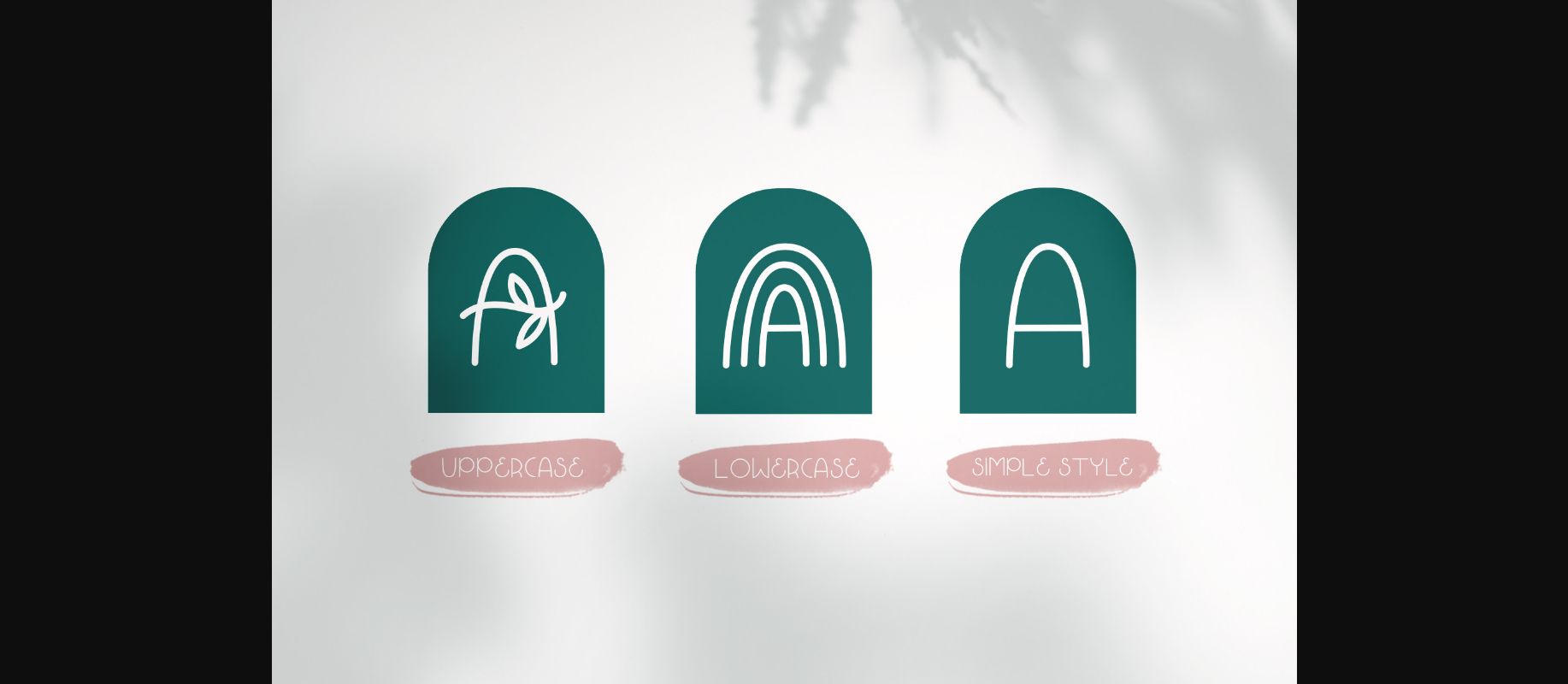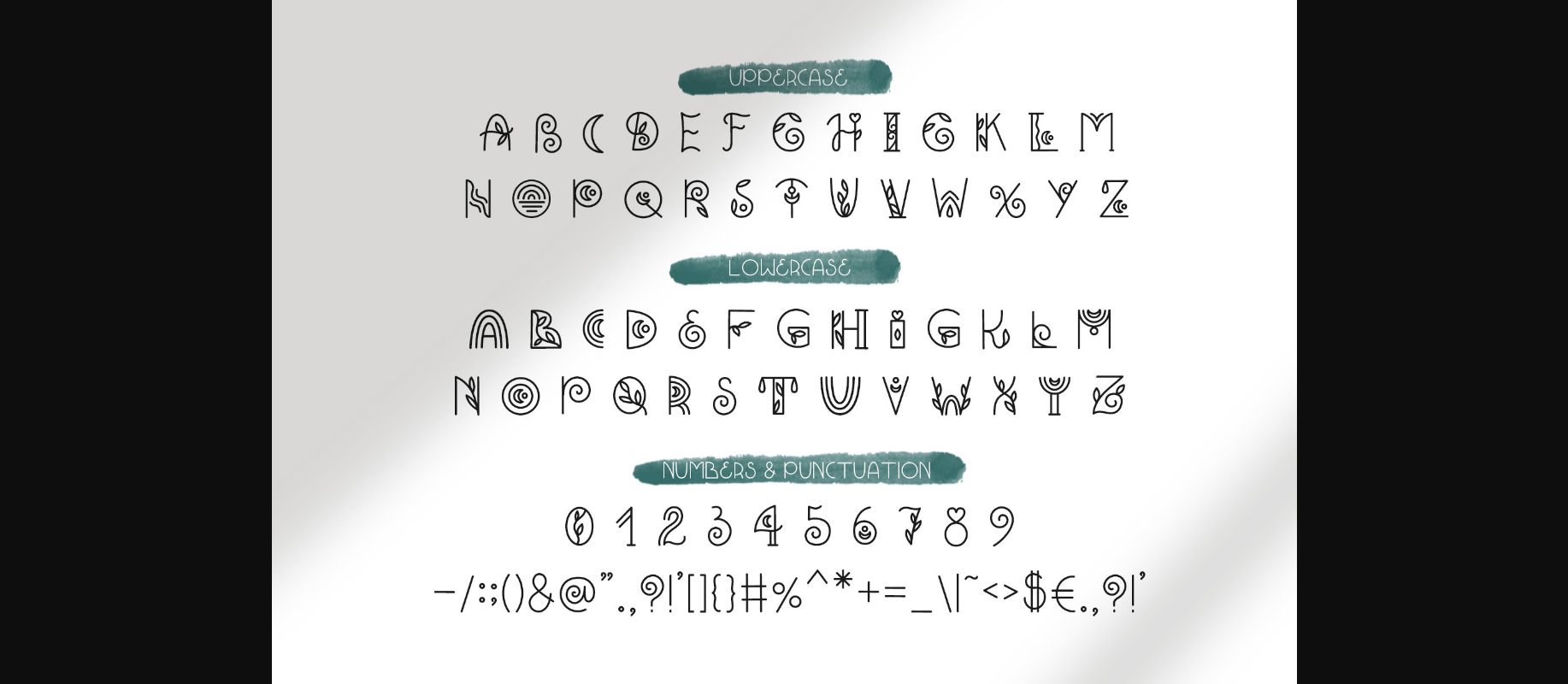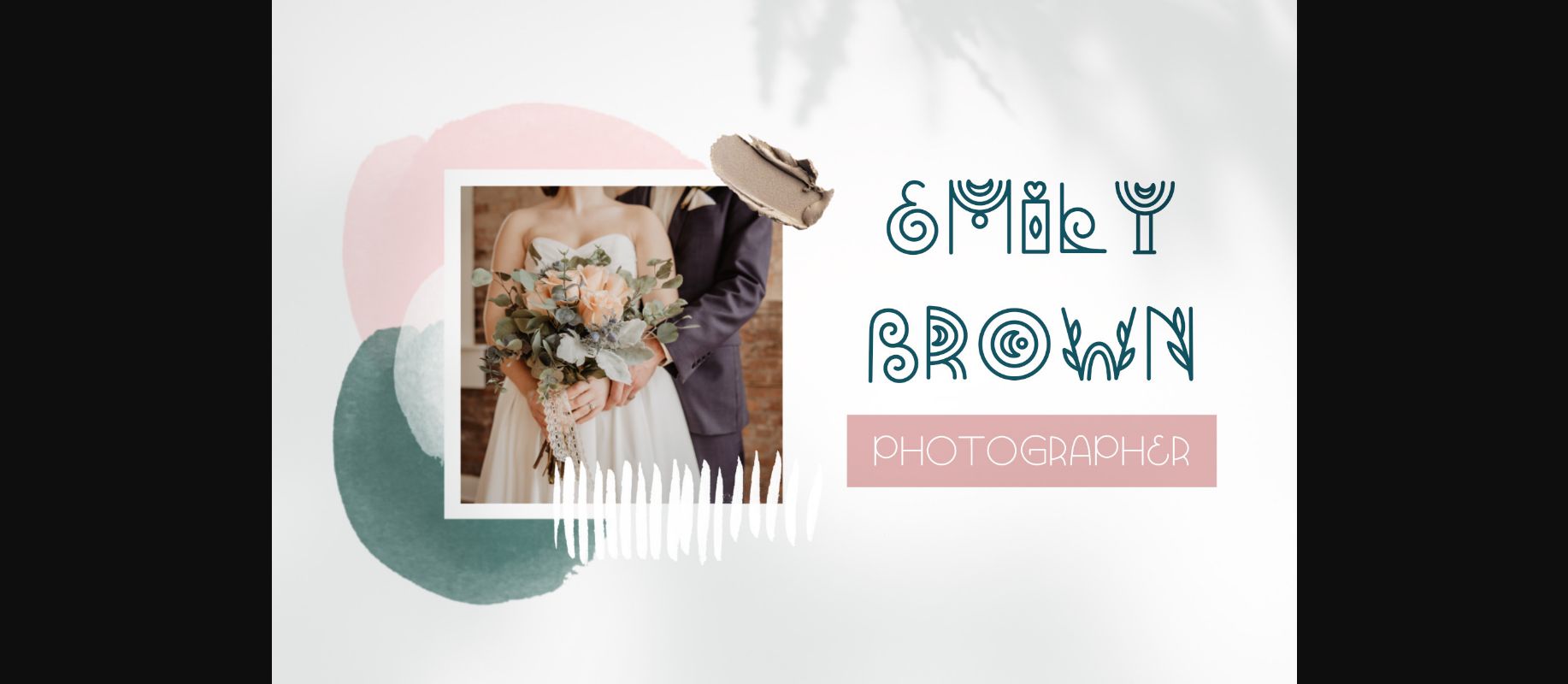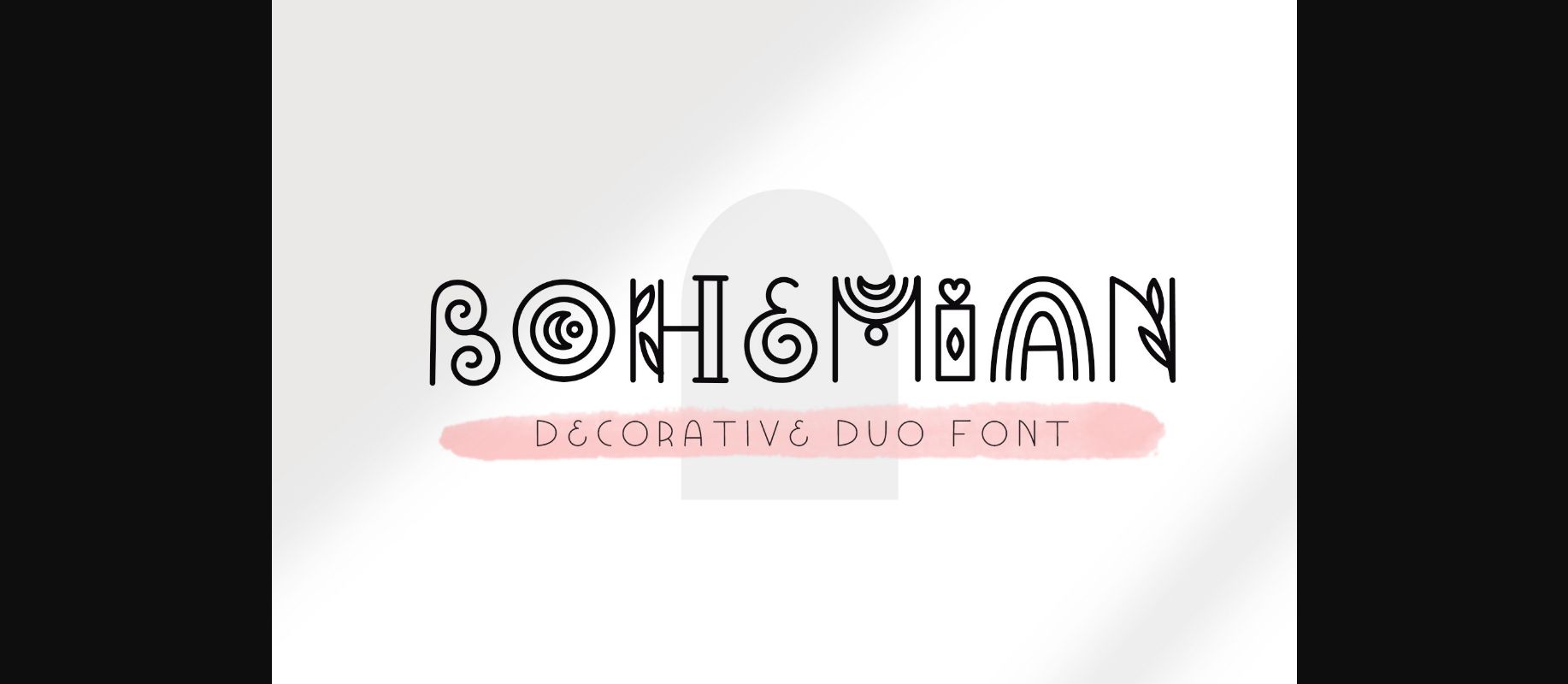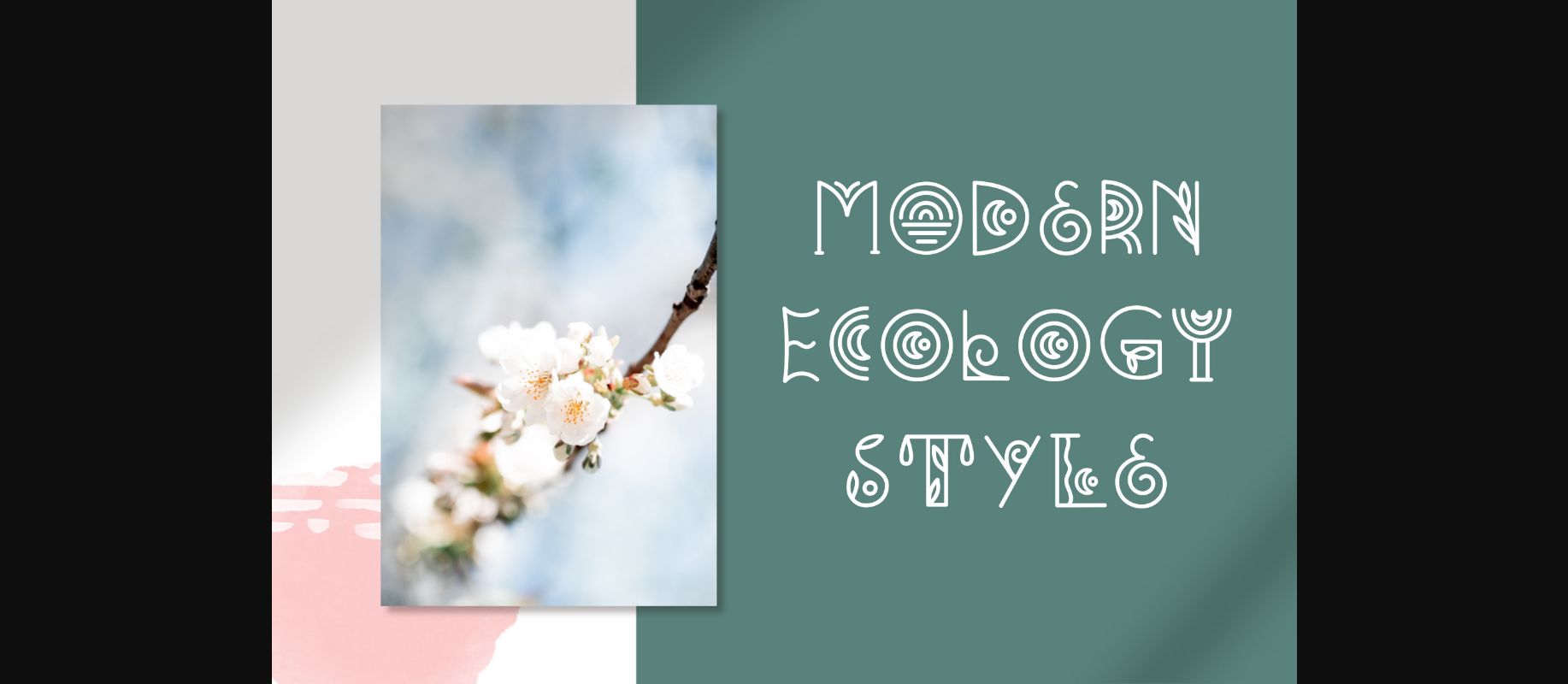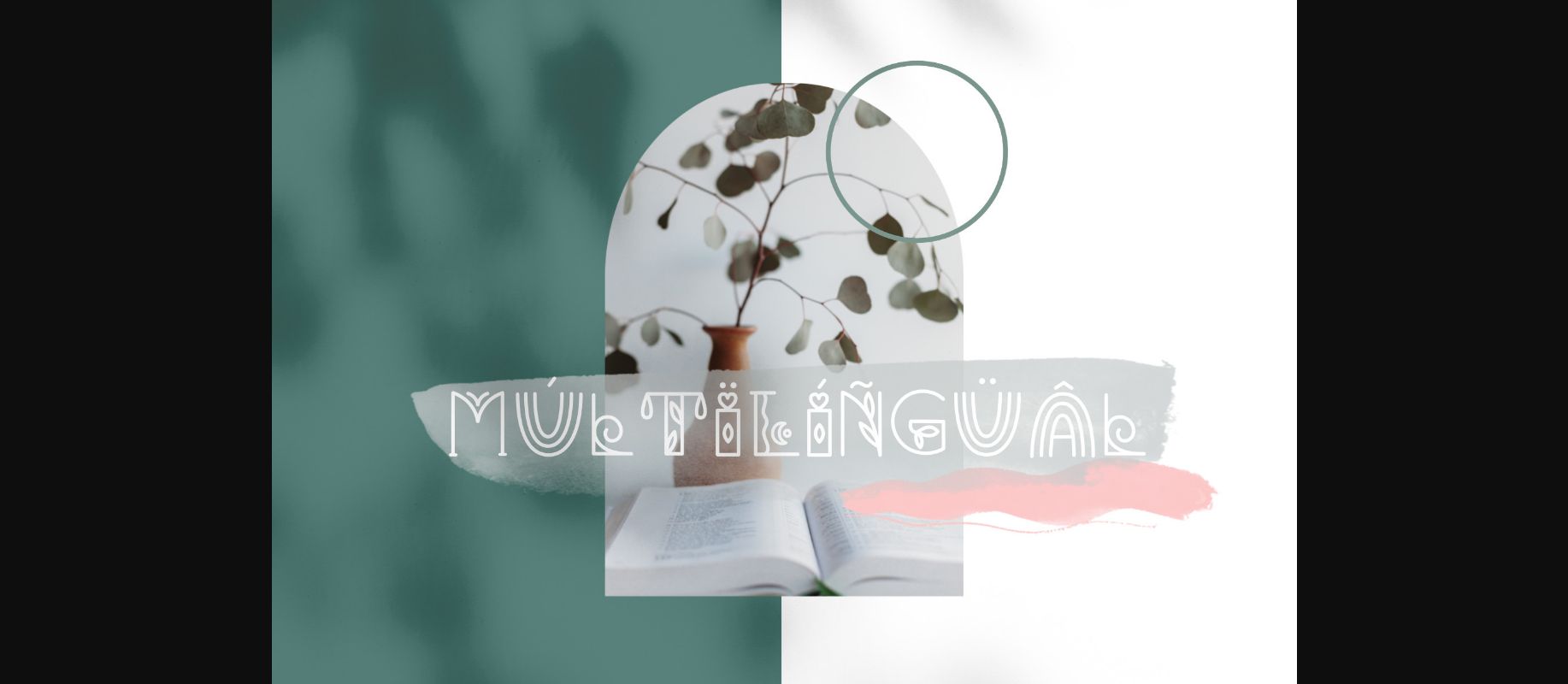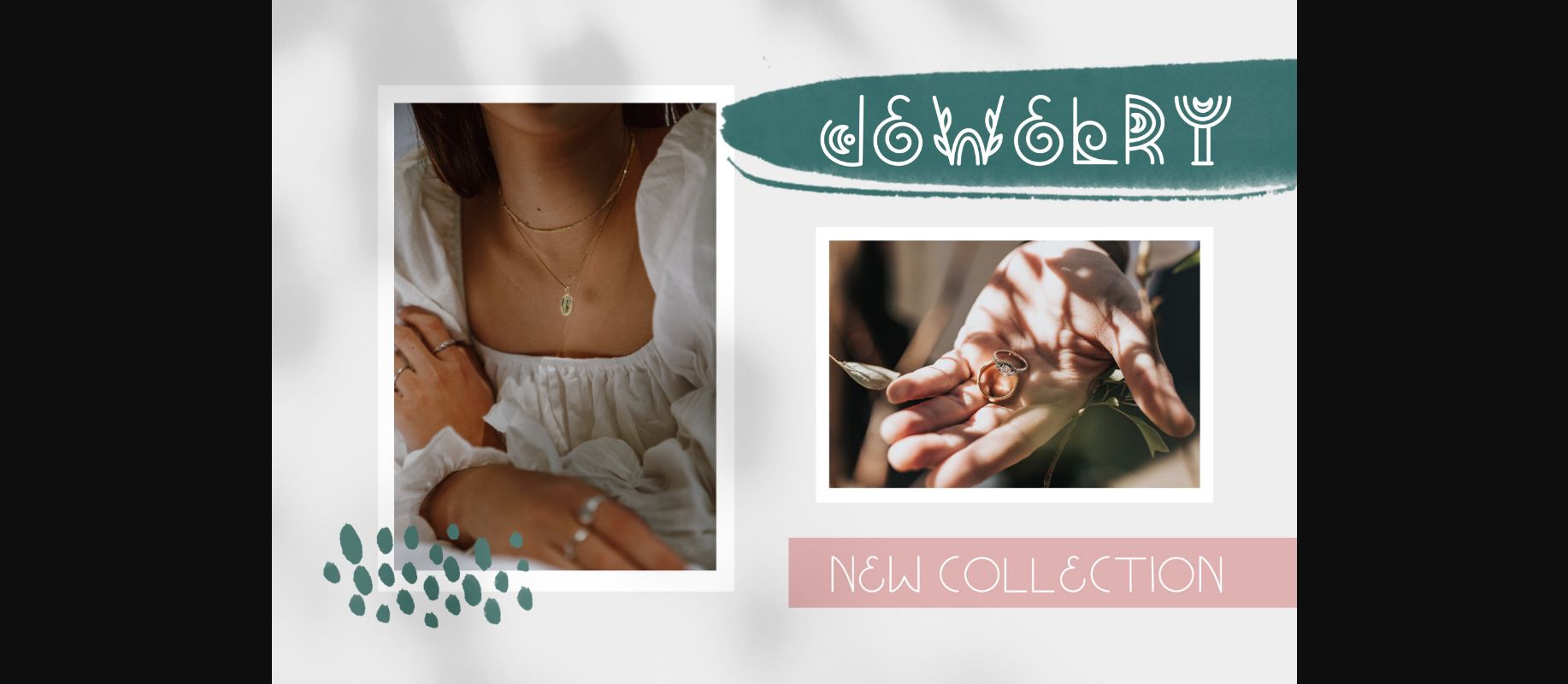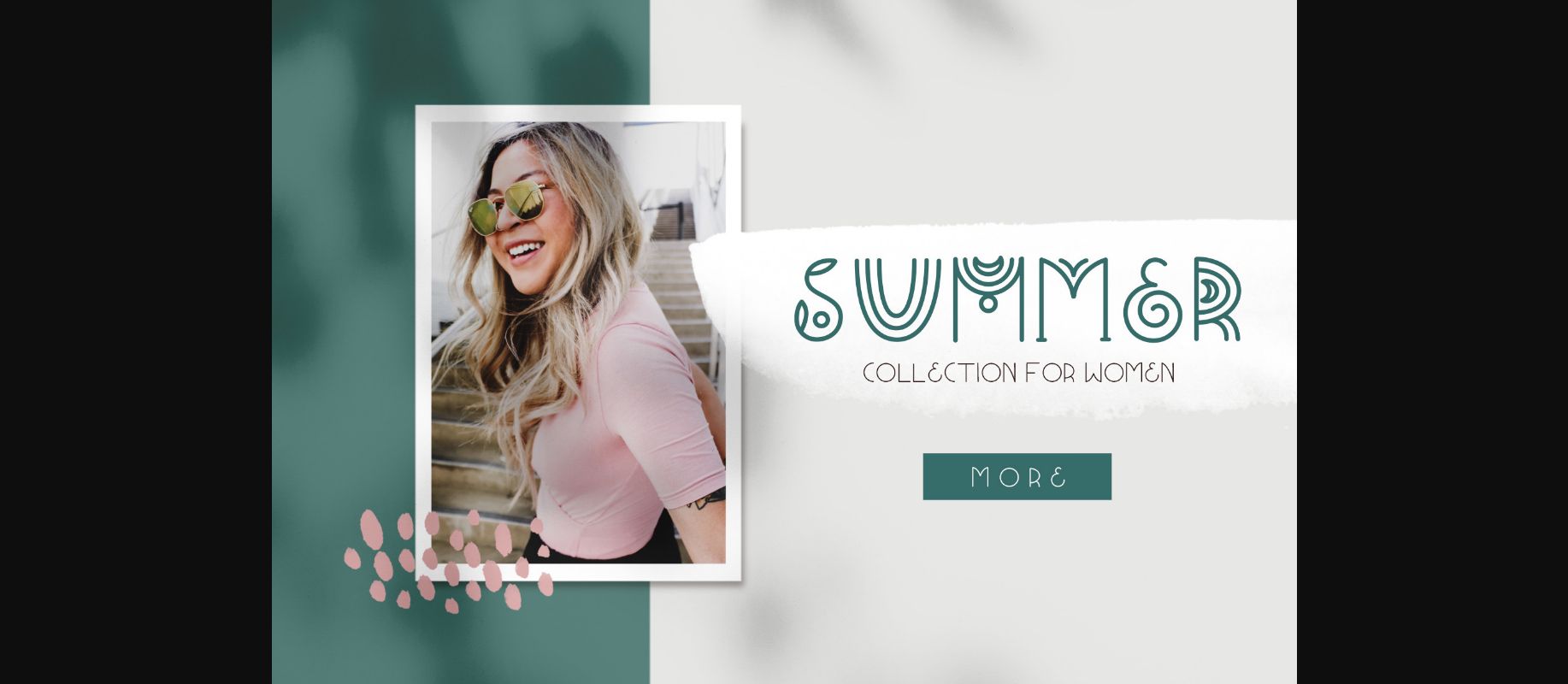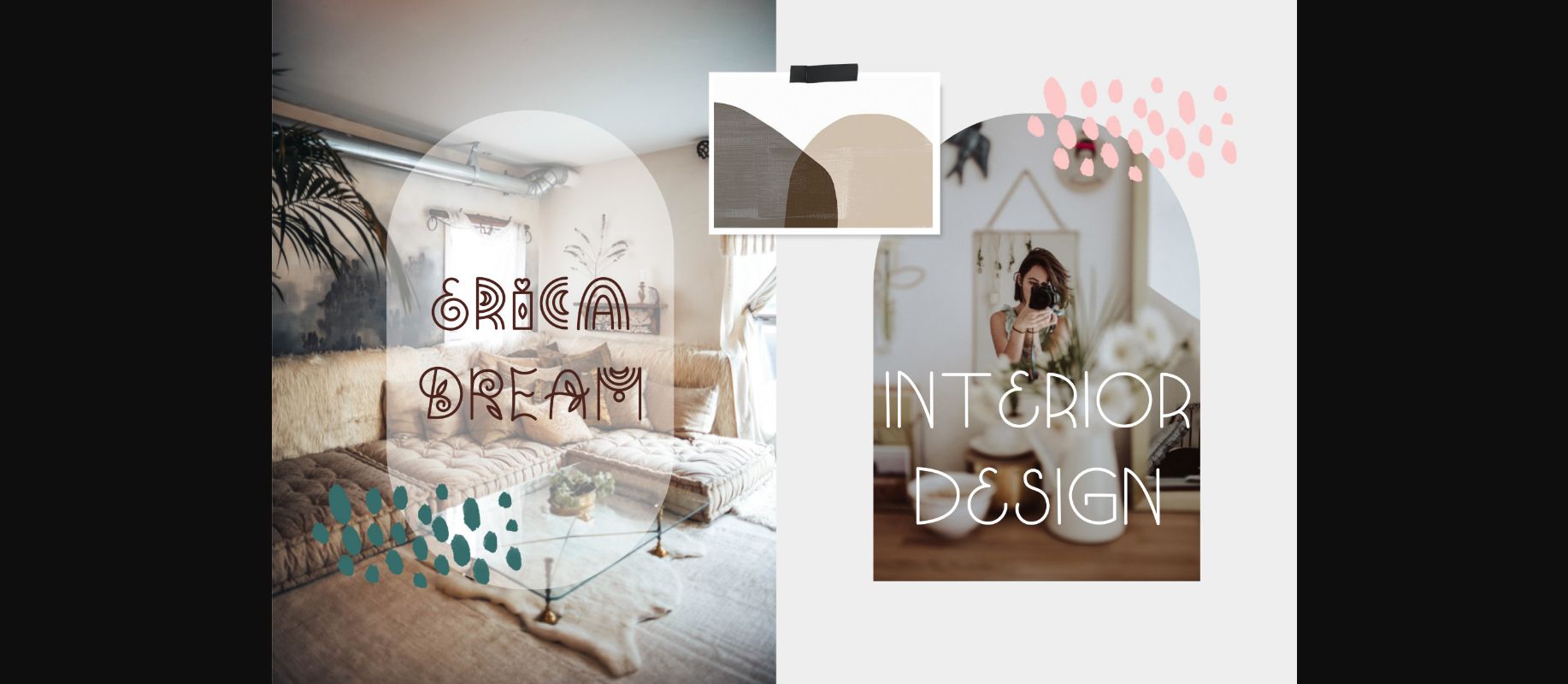
About Bohemian Font
Bohemian is a cool, unique and interesting looking duo decorative font. It can easily be matched to an incredibly large set of projects, so add it to your creative ideas and notice how it makes them stand out!